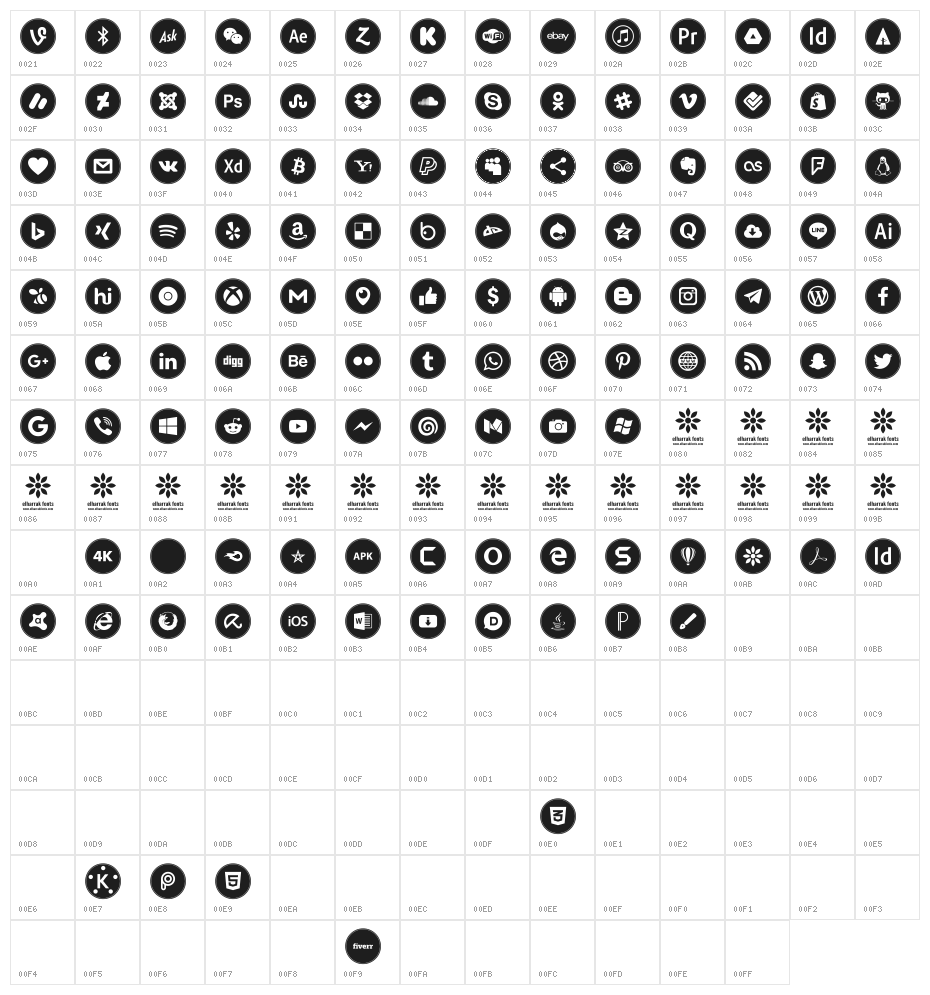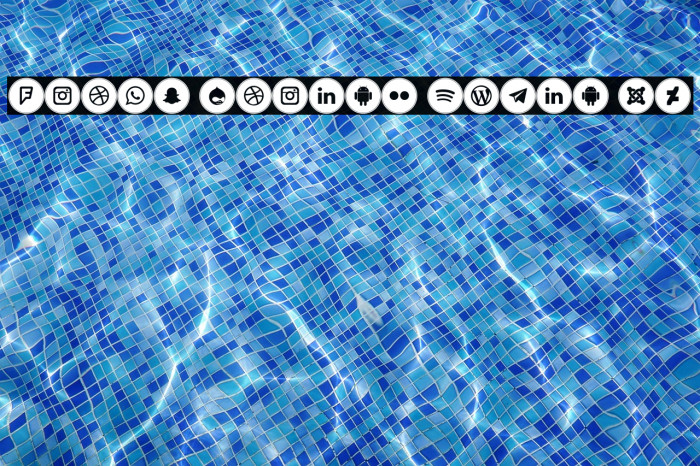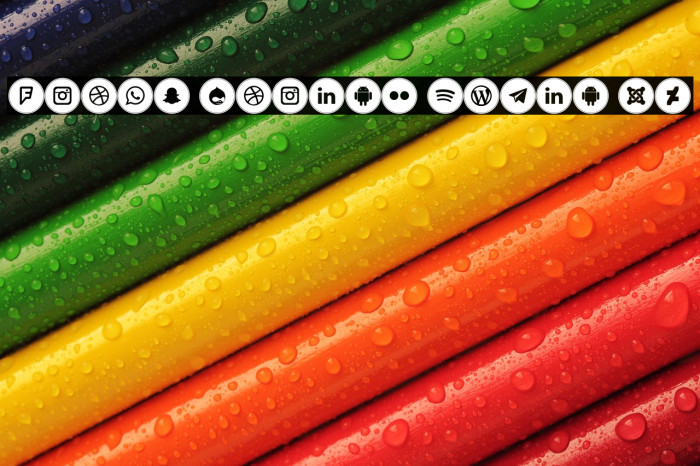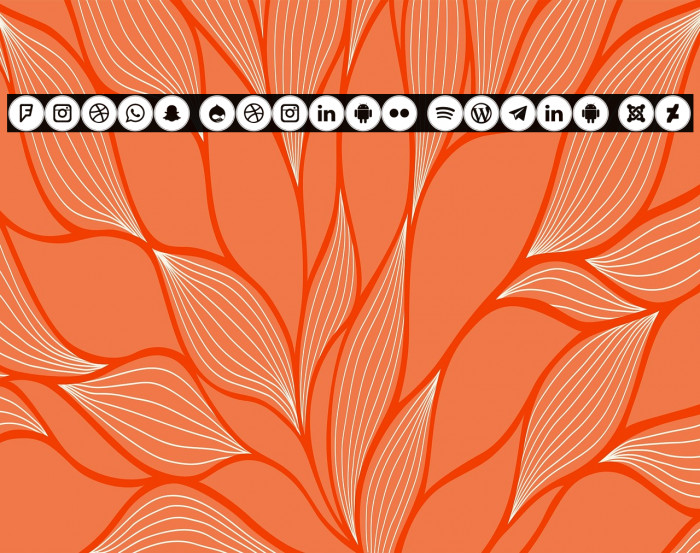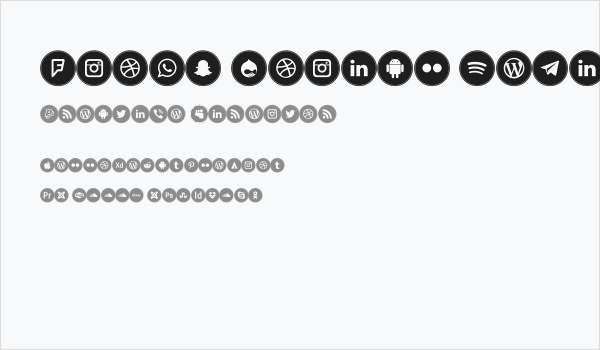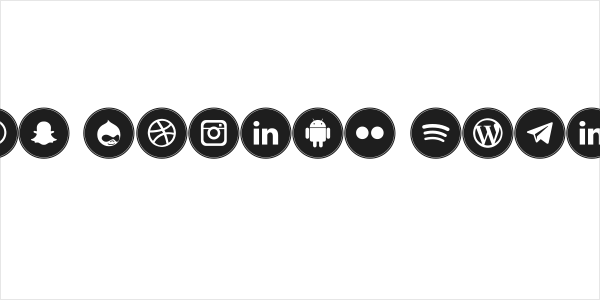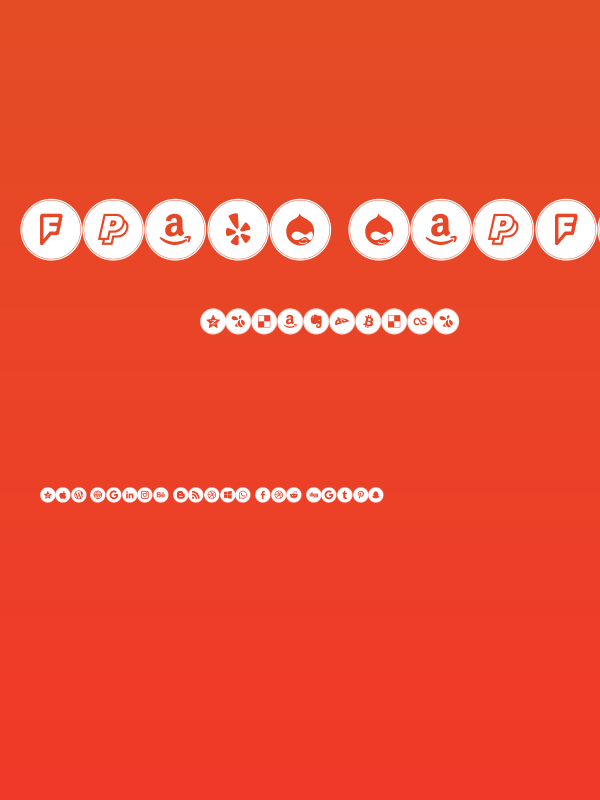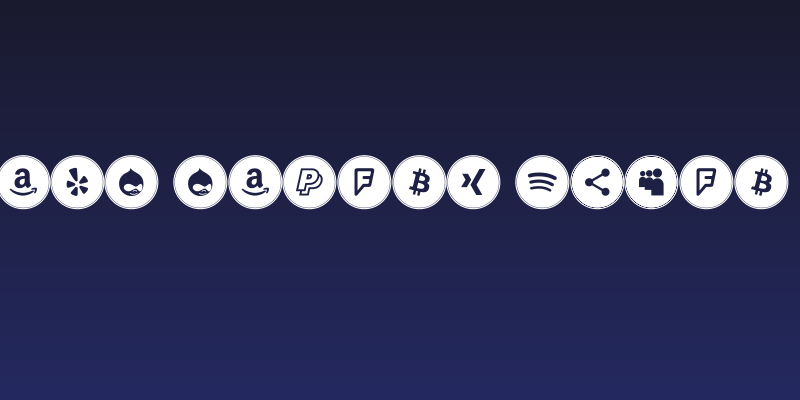
Icons Social Media 10 Font
Icons Social Media 10 Description
A collection of monochrome circular icons representing various social media and digital platform logos. Each icon features a white symbol centered within a solid black circle with a thin white border, designed for clear visibility and uniformity.
| Overall Style | Modern, Minimalist |
| Use Case | Social media buttons, app icons, navigation elements |
| Proposed Projects | Use in websites, mobile apps, digital marketing materials, social media links, and user interface designs. |